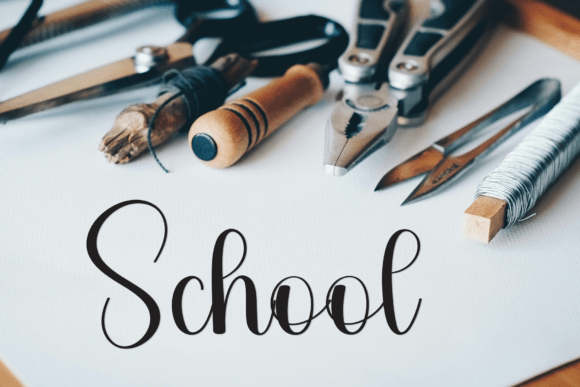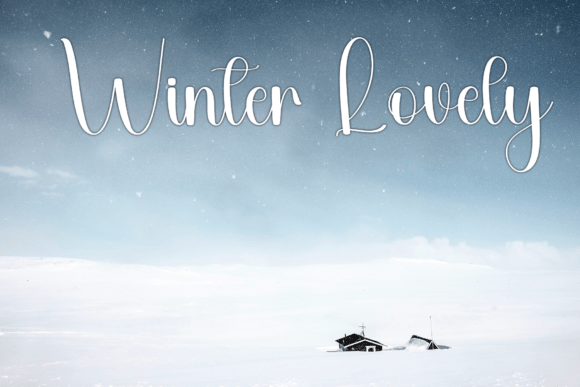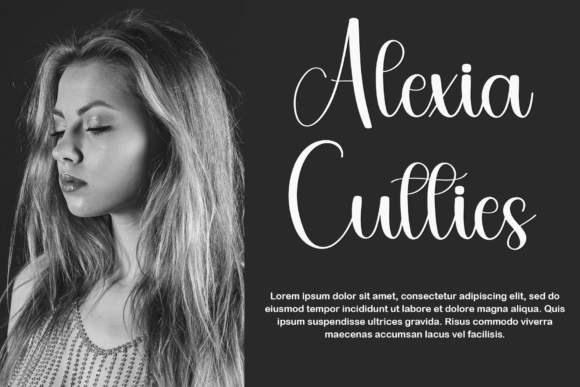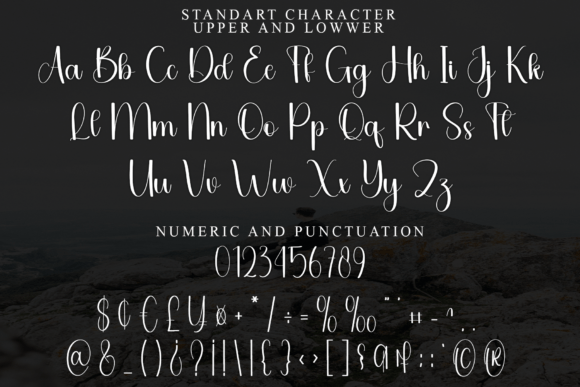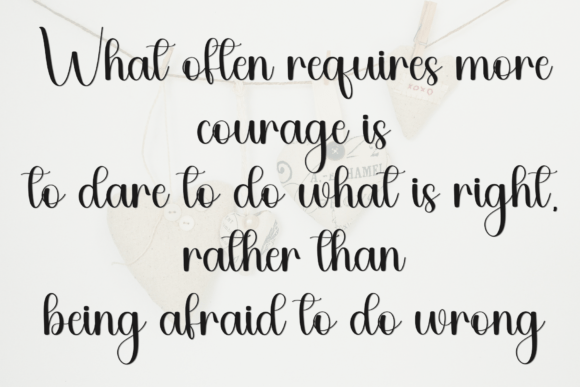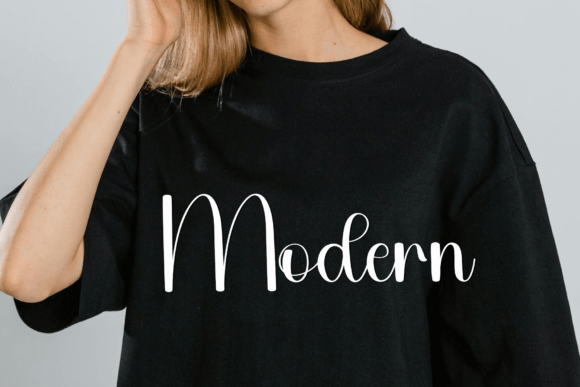
Introducing Heart Font: The Perfect Choice for Designers and Crafters
Are you tired of using the same old fonts for your design projects and crafts? Look no further than Heart Font, a beautiful and eye-catching typeface that is sure to capture the attention of your audience. With its soft, unique touch and distinctive strokes, Heart Font is the perfect choice for designers and crafters looking to add a special touch to their work.
A Unique and Versatile Font
Heart Font is a carefully crafted font that boasts a distinctive character, making it perfect for a wide range of design projects, crafts, and other creative works. Its unique strokes and soft texture give it a special charm that sets it apart from other fonts. Whether you’re working on a graphic design project, creating handmade crafts, or developing a brand identity, Heart Font is the ideal choice.
Key Features of Heart Font
- Unique and distinctive strokes: Heart Font’s strokes are carefully designed to give it a special character that sets it apart from other fonts.
- Soft and natural texture: The font’s soft texture gives it a natural and organic feel, making it perfect for a wide range of design projects.
- Versatile and adaptable: Heart Font is perfect for a wide range of design projects, crafts, and other creative works.
- Wide range of characters: The font comes with a wide range of characters, making it perfect for designers and crafters who need to create complex designs.
Heart Font is perfect for designers and crafters who want to add a special touch to their work. Whether you’re working on a graphic design project, creating handmade crafts, or developing a brand identity, Heart Font is the ideal choice. Its unique and distinctive strokes make it perfect for:
- Graphic design projects: Heart Font is perfect for graphic design projects, such as brochures, flyers, posters, and business cards.
- Handmade crafts: The font is perfect for handmade crafts, such as handmade cards, gift tags, and scrapbooking.
- Brand identity: Heart Font is perfect for developing a brand identity, such as logos, letterheads, and packaging.
Why Choose Heart Font?
There are many reasons why you should choose Heart Font for your design projects and crafts. Here are just a few:
- Unique and eye-catching: Heart Font is a unique and eye-catching font that is sure to capture the attention of your audience.
- Versatile and adaptable: The font is perfect for a wide range of design projects, crafts, and other creative works.
- High-quality: The font is of high-quality, making it perfect for professional designers and crafters.
In conclusion, Heart Font is a beautiful and eye-catching font that is perfect for designers and crafters looking to add a special touch to their work. Its unique and distinctive strokes, soft and natural texture, and versatility make it the ideal choice for a wide range of design projects, crafts, and other creative works. With its compatibility with various applications and wide range of characters, Heart Font is the perfect choice for anyone looking to enhance their designs and make them appealing to a wide audience.